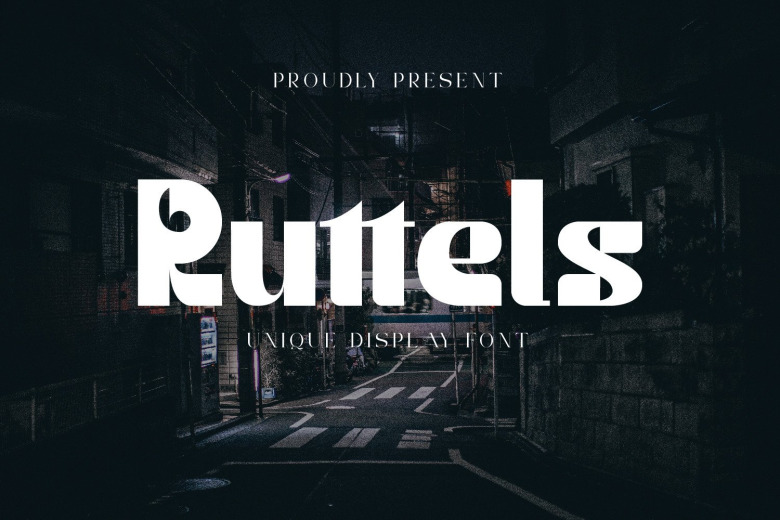
Ruttels Font
Ruttels display font comes with futuristic themes. This font looks a good and simple shape. Inspired by the unique and popular Motter Ombra font designed by Othmar Motter.
Ruttels is a custom font, which this font can be applied in various types of design and web-print. the form of a character that seems strong, makes this font can give a prominent impression in every design.